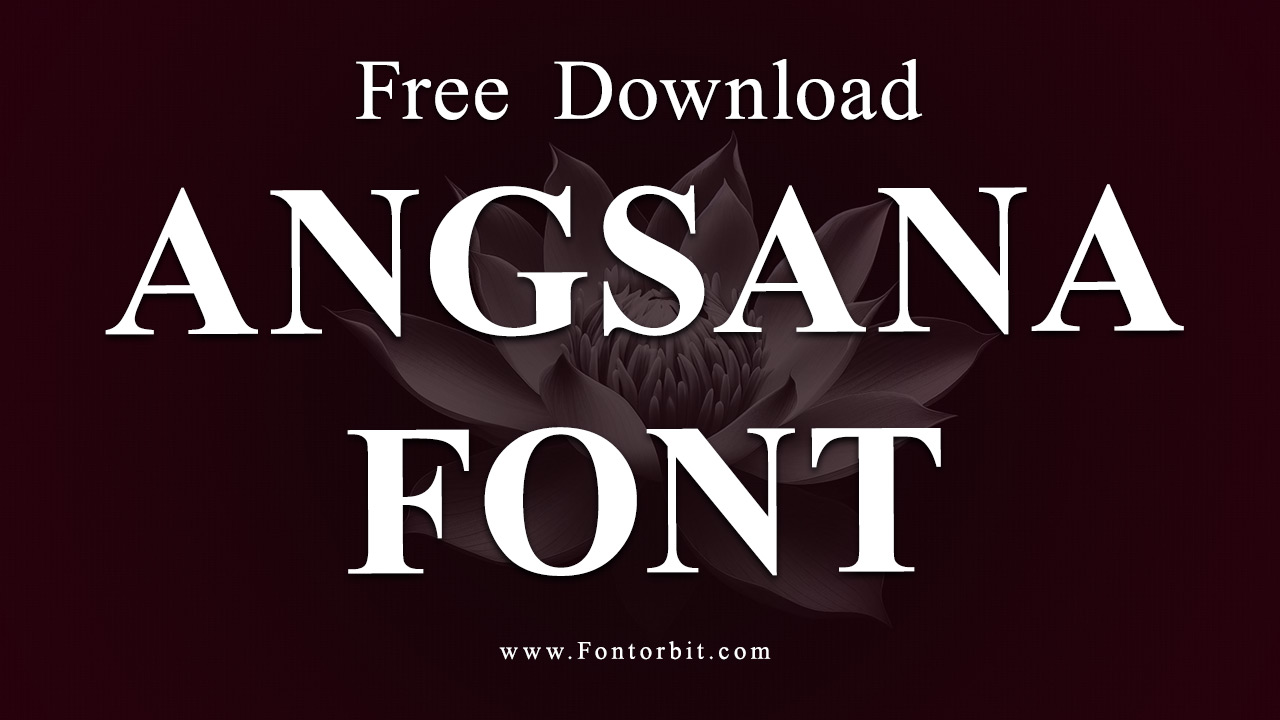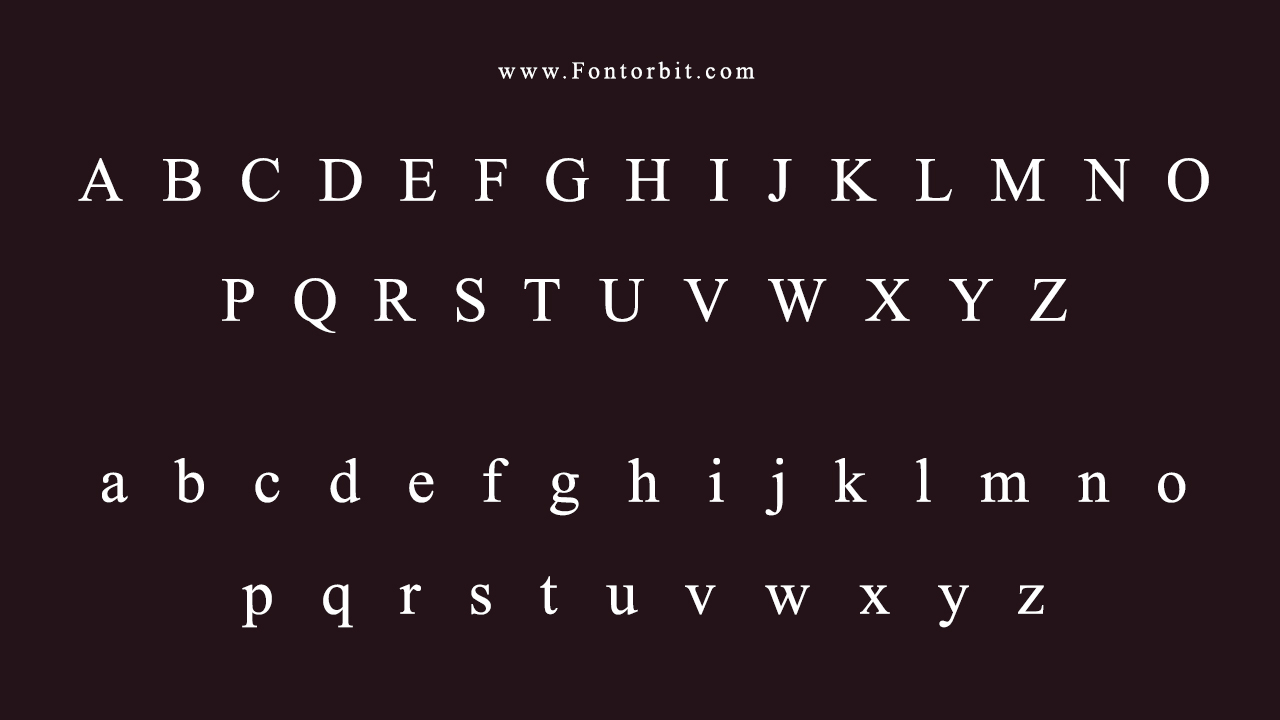
With five different weights, Angsana is versatile and works beautifully across various design projects. Introduced in the 1990s, the Angsana Font balances Thai and Latin characters, making it essential for multilingual content creation.
Angsana Font Family Includes
The Angsana font family has multiple styles to cater to different design needs. This family offers flexibility and is available in the following variations:
- Angsana-Regular
- Angsana Light
- Angsana New Regular
- Angsana New Italic
- Angsana New Bold
- Angsana New Bold Italic
Professionals extensively use Angsana in settings that demand a formal and legible appearance. It is ideal for websites requiring Thai and Latin scripts. Its adaptability makes it perfect for office environments, print publications needing bilingual support, and formal designs such as invitations and certificates. Due to its legibility and elegant design, Angsana suits the following:
- Government and corporate reports
- Academic papers
- Professional presentations
- Printed materials like brochures, books, and pamphlets
- Websites and blogs that require Thai script support
Its formal appearance makes it a good fit for both business and educational materials.
Angsana remains a timeless typeface, celebrated for its readability, elegance, and versatility. Its ability to support both Thai and Latin characters makes it a practical option for formal documents and designs.
With various styles available, the Angsana font family is a strong contender for any multilingual project, ensuring both professionalism and clarity.
1.What Is The Angsana Font Used For?
Angsana is commonly used for formal documents, reports, and print media that require Thai and Latin scripts.
2.Who Created The Angsana Font?
Angsana was developed by Unity Progress and released by Microsoft.
4.Can I Use Angsana For Web Design?
Yes, Angsana is suitable for web design, particularly for multilingual websites.
5.Does Angsana Support Multiple Languages?
Yes, it supports Thai and Latin scripts, making it ideal for bilingual content.
6.What Font Weights Does Angsana Offer?
Angsana includes Regular, Bold, Italic, and Bold Italic weights.
9.What Are Some Free Alternatives To Angsana?
Free alternatives include Leelawadee, Sarabun, and Browallia fonts.